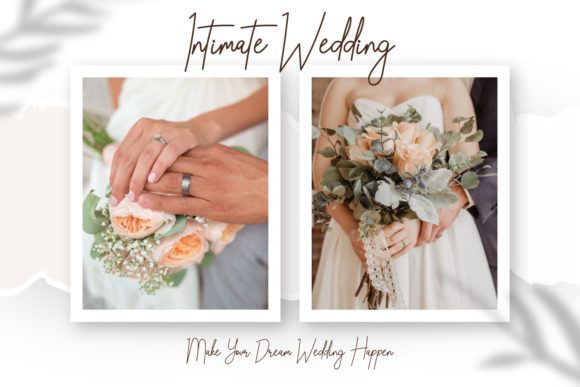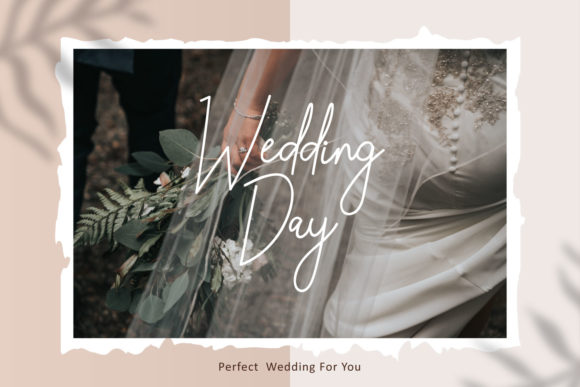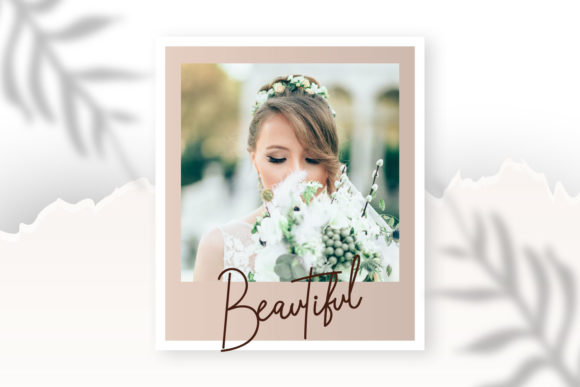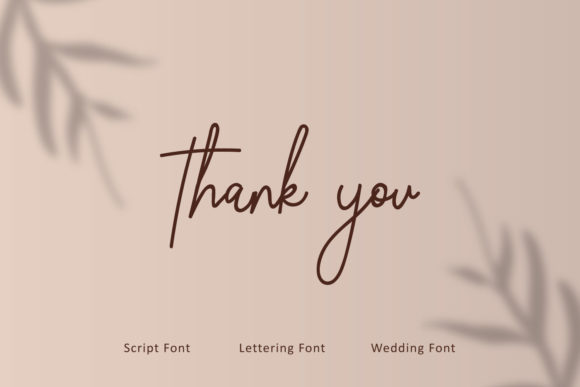
Introduction to Linttang Font
Do you remember that moment when you’re working on a creative project and you need the perfect font to elevate it? For designers, this is a common occurrence, and it can be frustrating when you can’t find the right one. But what if I told you that there’s a font that can take your projects to the next level, and it’s available for free download? Introducing the stunning Linttang Font, a high-quality, elegant handwritten font that’s perfect for any design resource.
With its smooth lines, beautiful glyphs, and stunning alternative, Linttang Font maintains a classy calligraphic influence while feeling contemporary and fresh. This versatile font is ideal for designers who want to add a touch of sophistication to their creative project. Plus, with its transparent background, you can easily layer it with other design elements to create a visually appealing composition.
Key Features of Linttang Font
- High-quality design resource ideal for creative projects, including graphic design, web design, and digital art.
- Unique, hand-drawn design with a transparent background, allowing for seamless integration into any creative project.
- Designed to be versatile, suitable for use in both print and digital media, including business cards, logos, and website typography.
- Comes with a comprehensive character set, including uppercase and lowercase letters, numbers, and special characters.
- Perfect for designers seeking a distinctive and creative design element to elevate their work and stand out from the crowd.
Honest Review: Linttang Font
I recently stumbled upon the Linttang Font, a unique design resource that has the potential to elevate my creative projects. The first thing that caught my attention was its high-quality design, which is perfect for any serious design enthusiast.
- ✨ The font’s design is highly customizable, allowing users to experiment with different styles and arrangements.
- ✨ The font’s transparent background makes it easy to integrate with other design elements.
- ⚠️ The font may not be suitable for very large-scale projects due to its relatively small character set.
- ⚠️ Some users may find the font’s design too minimalist for their taste.
Overall, I’m impressed with the Linttang Font’s potential. Its high-quality design, flexibility, and free download make it an excellent addition to any designer’s toolkit. However, its limitations should be carefully considered before deciding to use it for a creative project.
The Linttang Font is a high-quality design resource ideal for creative projects requiring a unique touch. Its transparent background makes it versatile for various applications.
The Linttang Font is suitable for various design projects, including:
- Editorials